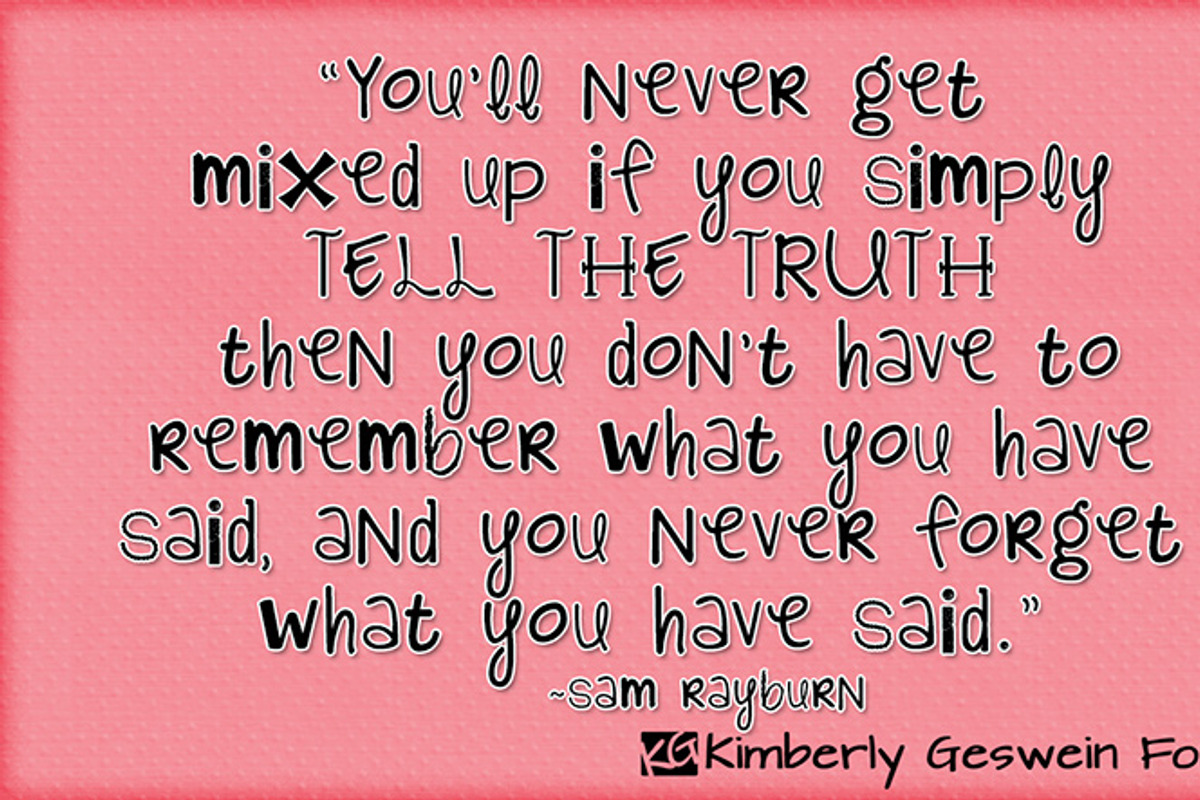
KG Alphabet Regurgitation Font
KG Alphabet Regurgitation Font by Kimberly Geswein Fonts is a font selected for branding, posters, packaging, typography.
Why KG Alphabet Regurgitation Font is worth a look
KG Alphabet Regurgitation Font by Kimberly Geswein Fonts fits naturally into Branding, posters, packaging, typography.